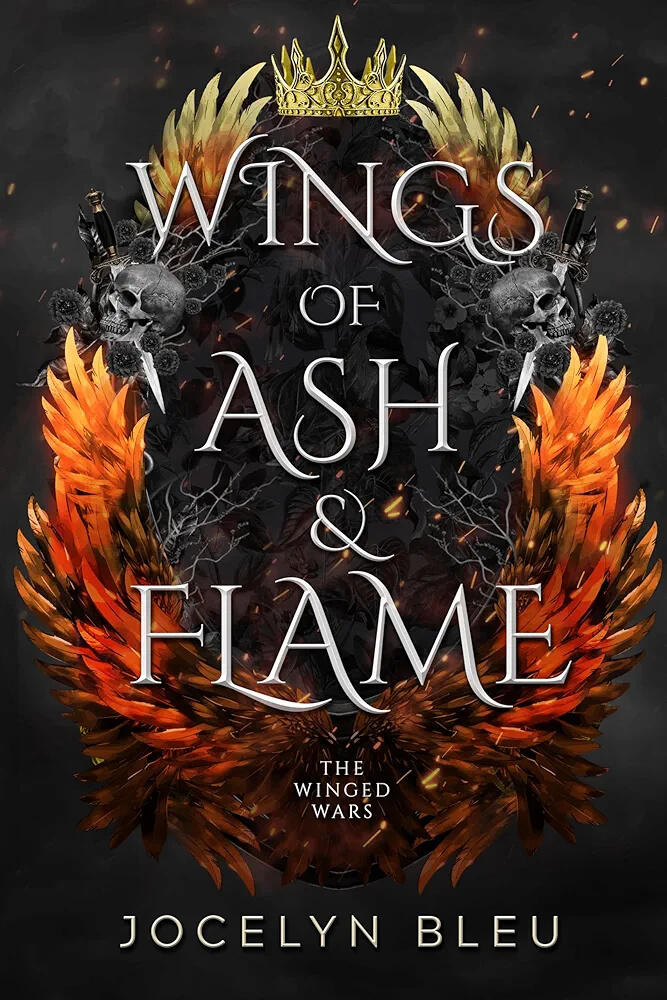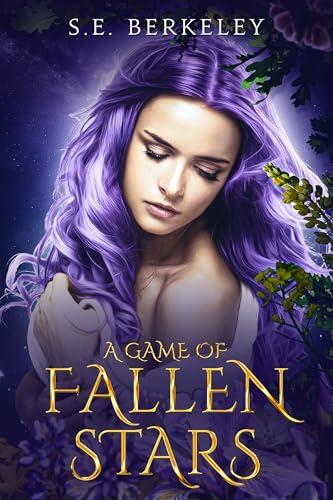
General inquiry: Cinzel overused?
On a forum for writers, in a discussion about a member's design for his publicity material, one person commented on a sample using Cinzel for secondary text that it should use a serif font to contrast with the main heading. I responded that Cinzel IS a serif font.
The person then came back with, "Point. But it's overused."
As far as I know, Cinzel has never been included with Windows, MacOS, Linux, Android, or iOS. I've never met anyone else who has even heard of Cinzel. Am I missing something? Is Cinzel so widely used in some circles that a person would be justified in calling it "overused?"
If you flip it around and ask “name some overused fonts”, it certainly wouldn’t make the list.
But it all depends on context. Google fonts are used millions of times every day and it that sense, it is certainly used a lot and probably also a common choice for books. I have certainly seen it on covers in certain genres. Or one could mean the general style (roman caps like Trajan) and that is indeed overused.
The comment was in response to a business card design and the author specifically identified the font as Cinzel, at which point someone else chimed in with a comment that the font should be a serif font to contrast with the main heading. I responded that Cinzel IS a serif font.
The person then came back with, "Point. But it's overused."
So he/she was clearly stating that Cinzel is overused, not just that serif Roman text is overused. And I was, quite honestly, shocked, because I could not have considered Cinzel to be overused at all.